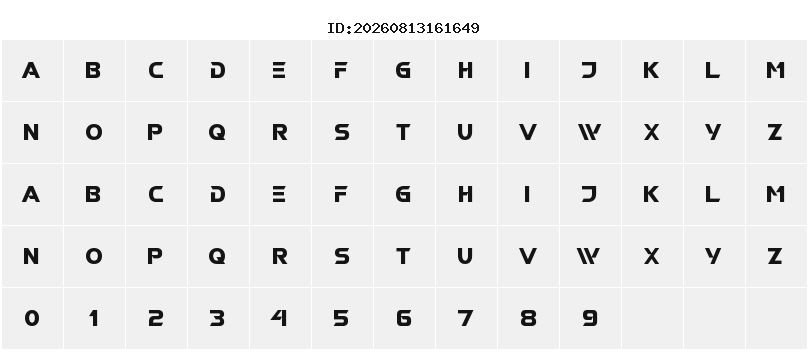
ROBOTECH GP Preview
• Font Name: ROBOTECH GP
• Designer: Gustavo Paz L.
About ROBOTECH GP.ttf
ROBOTECH GP.ttf is a modern, elegant sans-serif font designed for ultimate readability and visual harmony. Perfect for branding, headlines, web design, and print materials.